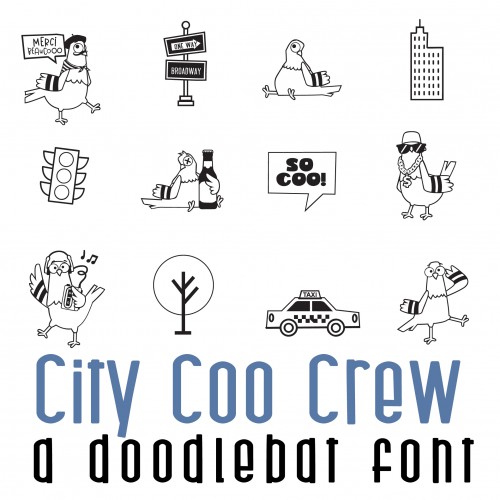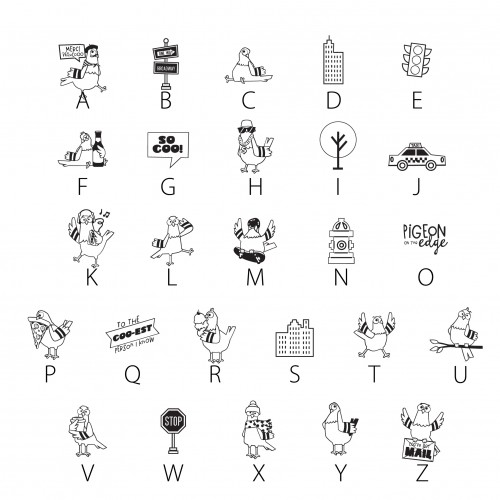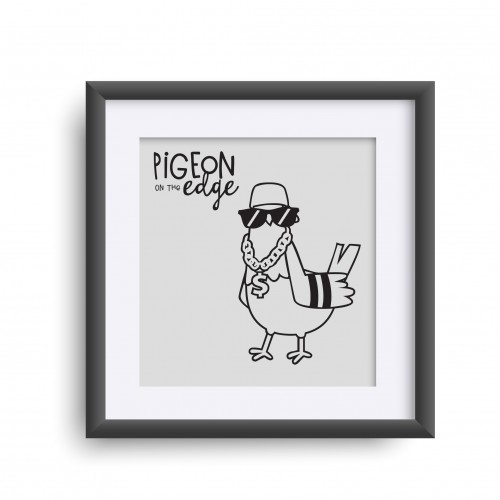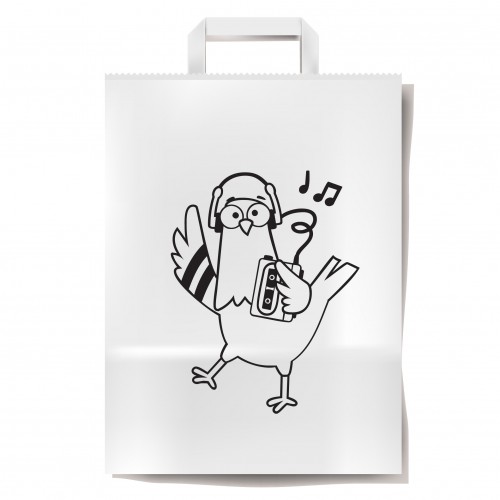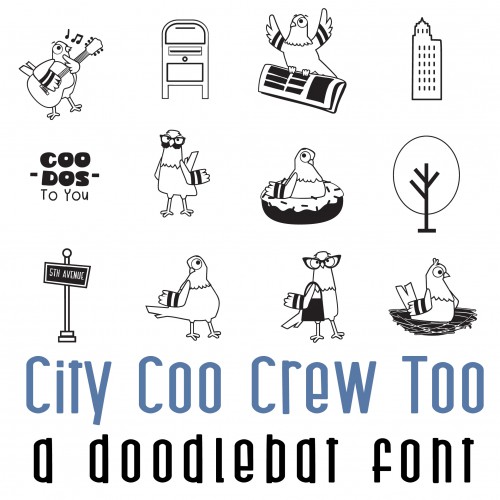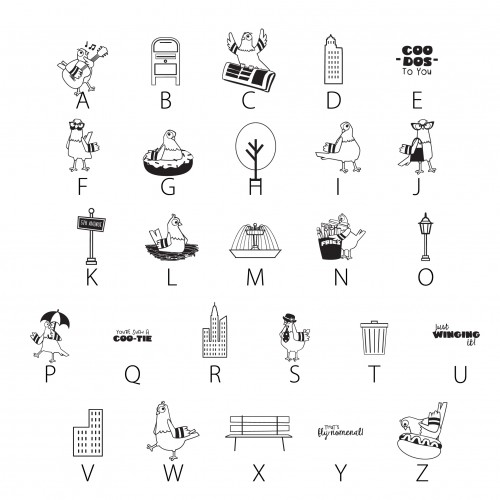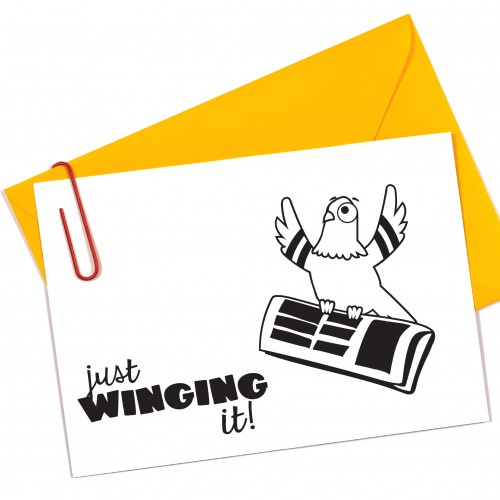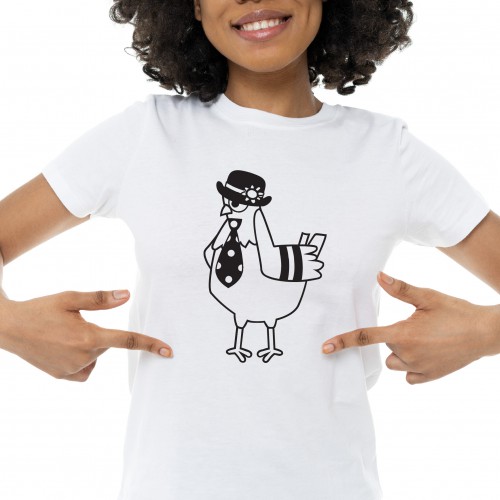
City Coo Crew - Big Bundle
This fun collection features adorable city Pigeons, perfect for cards, crafts, gifts, decor, classrooms, planner stickers, scrap book pages and more!
This chunky sans serif is bouncy, toggled, chunky and whimsical, with some additional grunge...
DB City Coo Crew - DB
This fun doodlebat font features 27 pigeons in the city, perfect for cards, crafts, gifts, decor, cl..
DB City Coo Crew - Too - DB
This fun doodlebat font features 26 more pigeons in the city, perfect for cards, crafts, gifts, deco..
City Coo Crew - GS
This fun graphic set features 26 pigeons in the city, perfect for cards, crafts, gifts, decor, class..
City Coo Crew - CS
This fun cuttable graphic set features 26 pigeons in the city, perfect for cards, crafts, gifts, dec..
City Coo Crew - Too - GS
This fun graphic set features 26 more pigeons in the city, perfect for cards, crafts, gifts, decor, ..
City Coo Crew - Too - CS
This fun cuttable graphic set features 26 more pigeons in the city, perfect for cards, crafts, gifts..
City Coo Crew - CP
Create adorable pigeon gift bags, gift boxes and gift card holders with this simple cut project set...
City Coo Crew - PP
This fun paper pack coordinates with our City Coo Crew Collection...
City Coo Crew - AL
This fun alphabet coordinates with our City Coo Crew Collection...